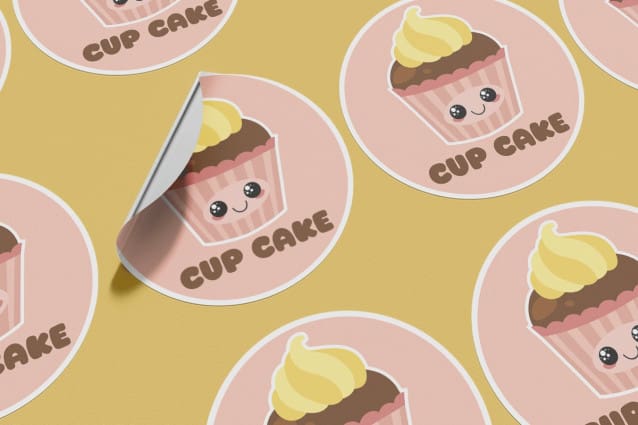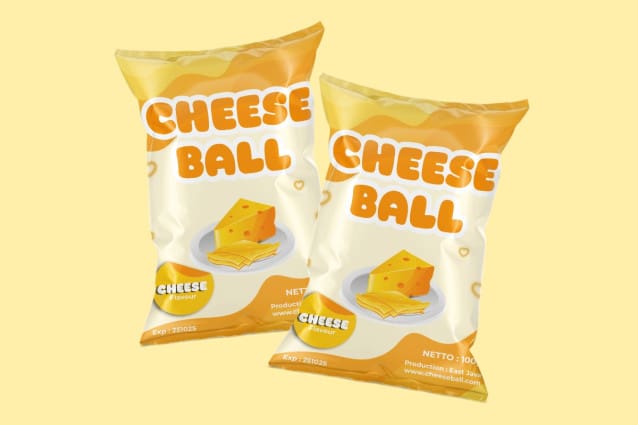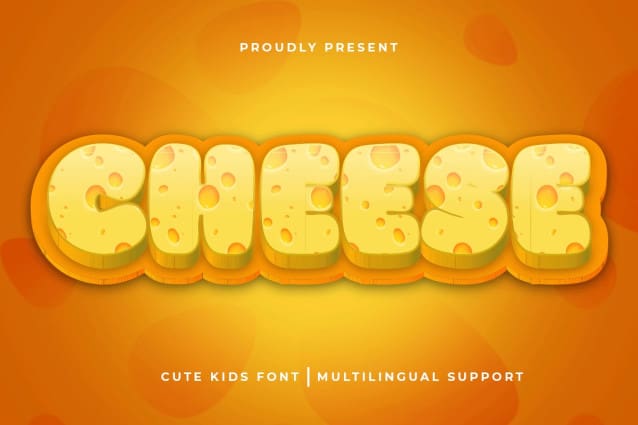
Cheese Cute Kids Font
Cheese Cute Kids Font, our fun and kids font designed for fun party logos and fonts. Created with elliptical and bubble shapes, Cheese Cute Kids Font is our light typeface that embodies a fun and colorful character. This font is made to work well digitally and in print.
This type of letter has several unique characteristics that we can see carefully in its shape which is the same size and swells. These cute shapes are made to look modern, colorful, and playful. This font is the best font used as a brand name or merchandise related to children’s fashion and equipment. Font size can be adjusted according to the items included. This font will be suitable for printing in medium font size. If it is too small or too large, the Cheese Cute Kids Font will be more difficult to read.
Apart from the uses mentioned above, you can use Cheese Cute Kids Font for a cheerful and colorful event poster. This font can be used for tickets, banners, and stickers. The unique design of this font will also attract the attention of readers who see this poster scattered in various places, so they are interested in reading more about the poster’s contents.